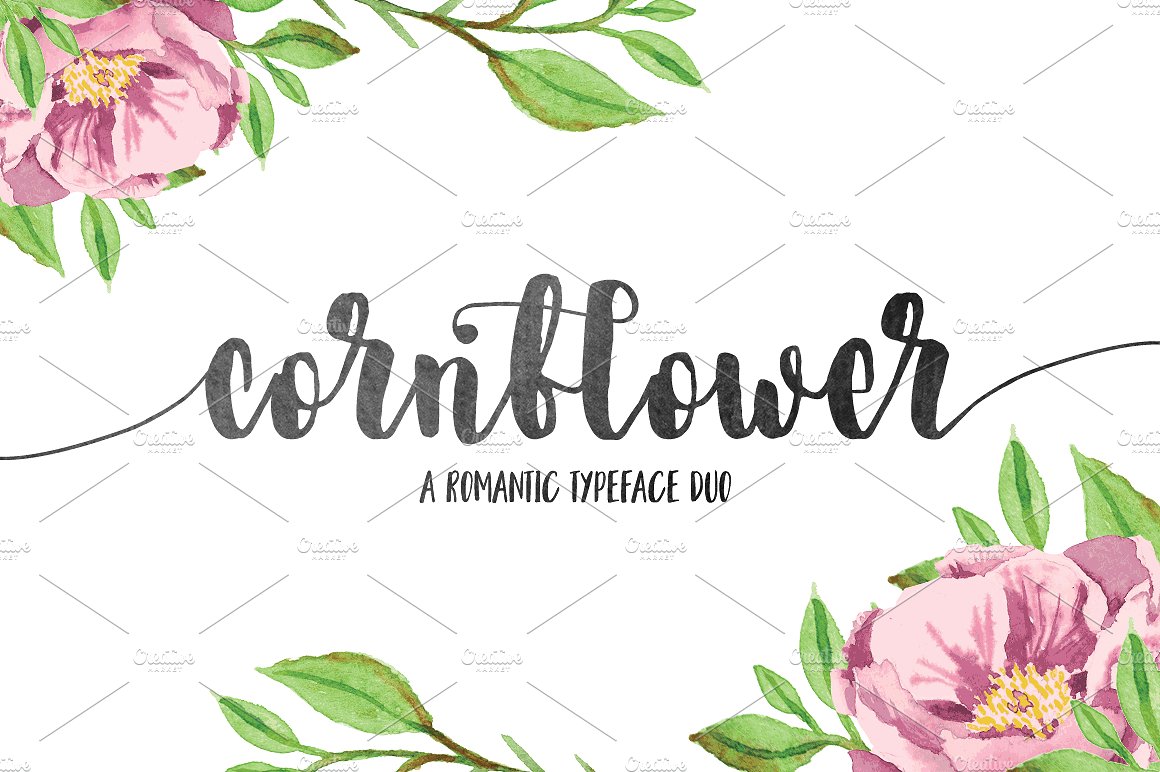
Cornflower DUO Script
Cornflower DUO Script – a new fresh handmade calligraphy font. It has a perfectly paired complimentary font “When I See You”. Very suitable for greeting cards, branding materials, business cards, quotes, posters, and more!